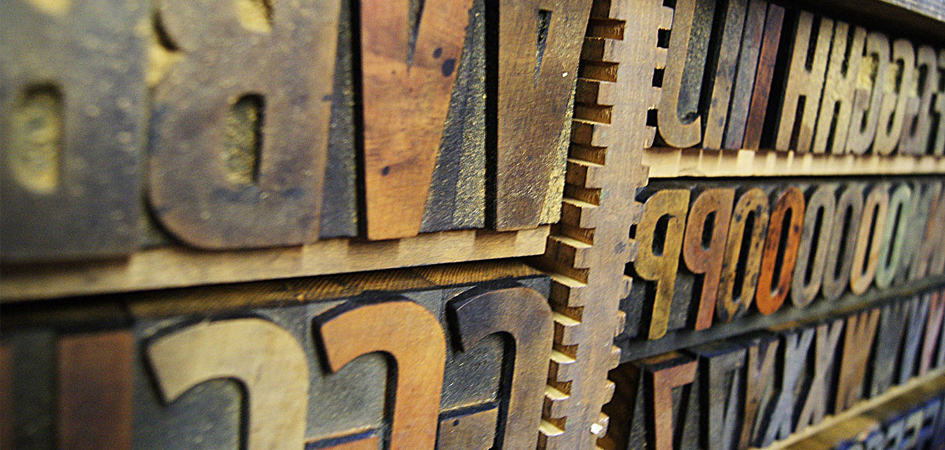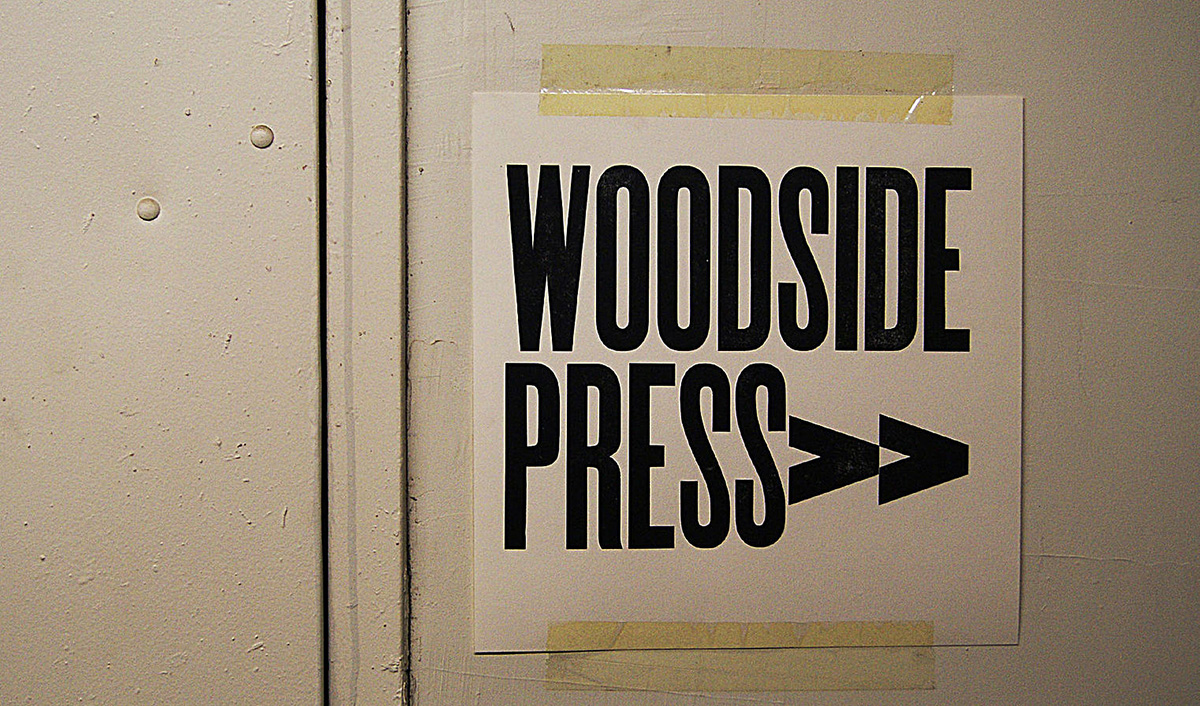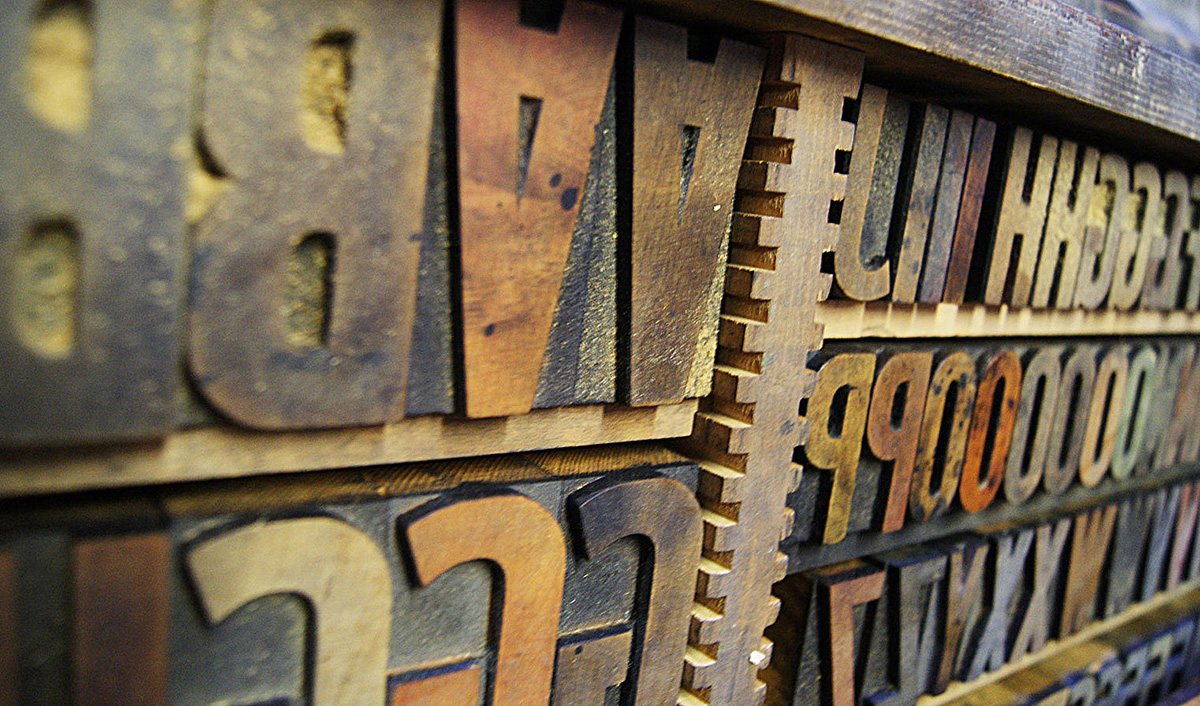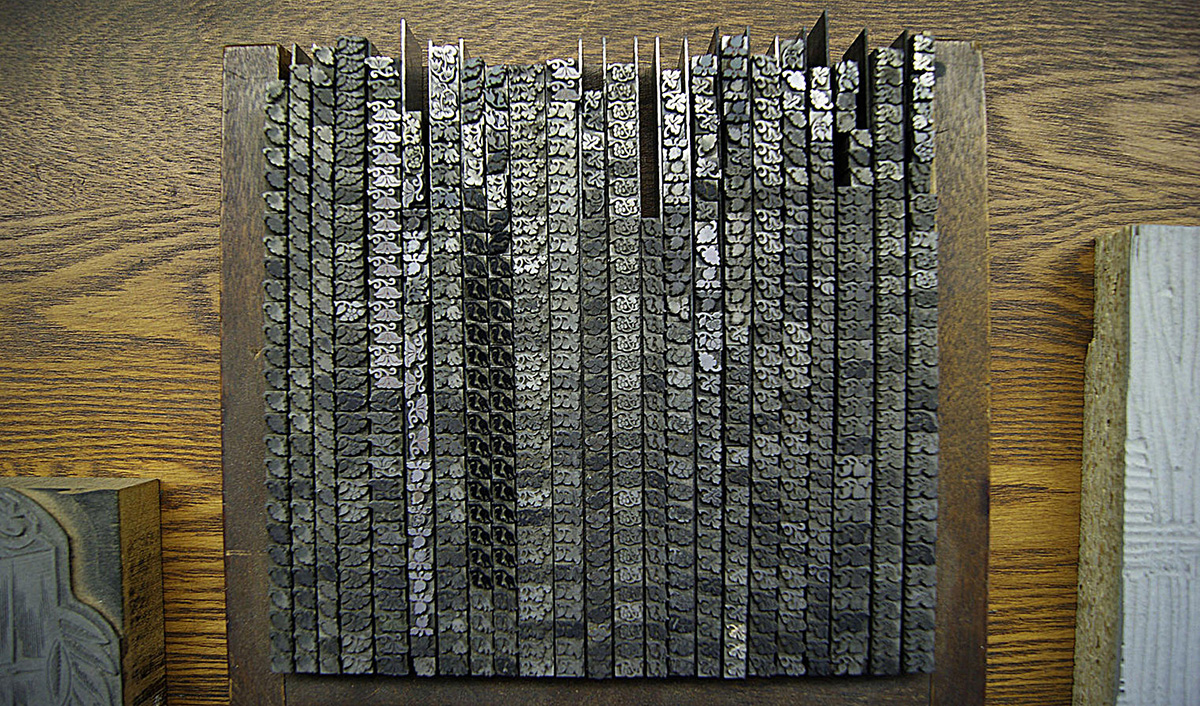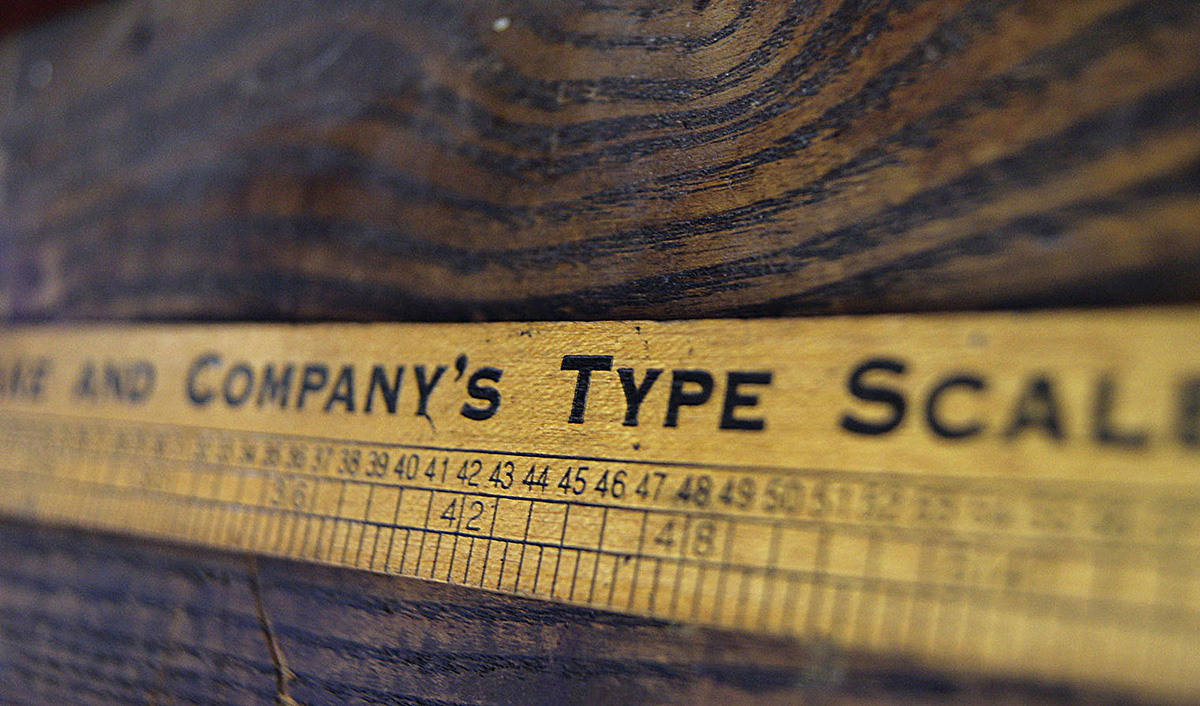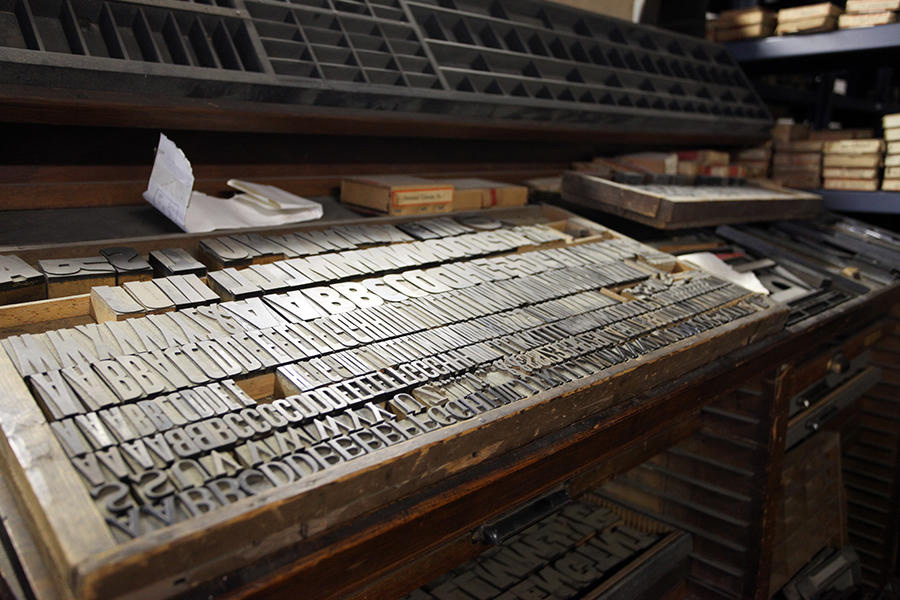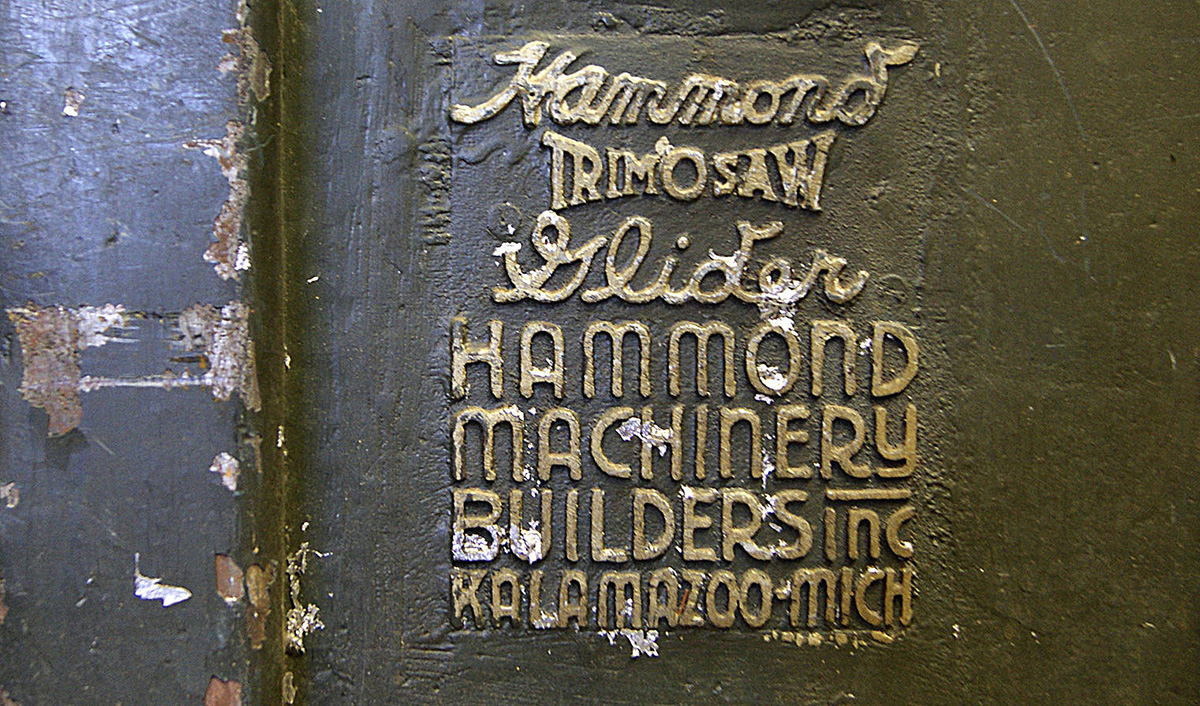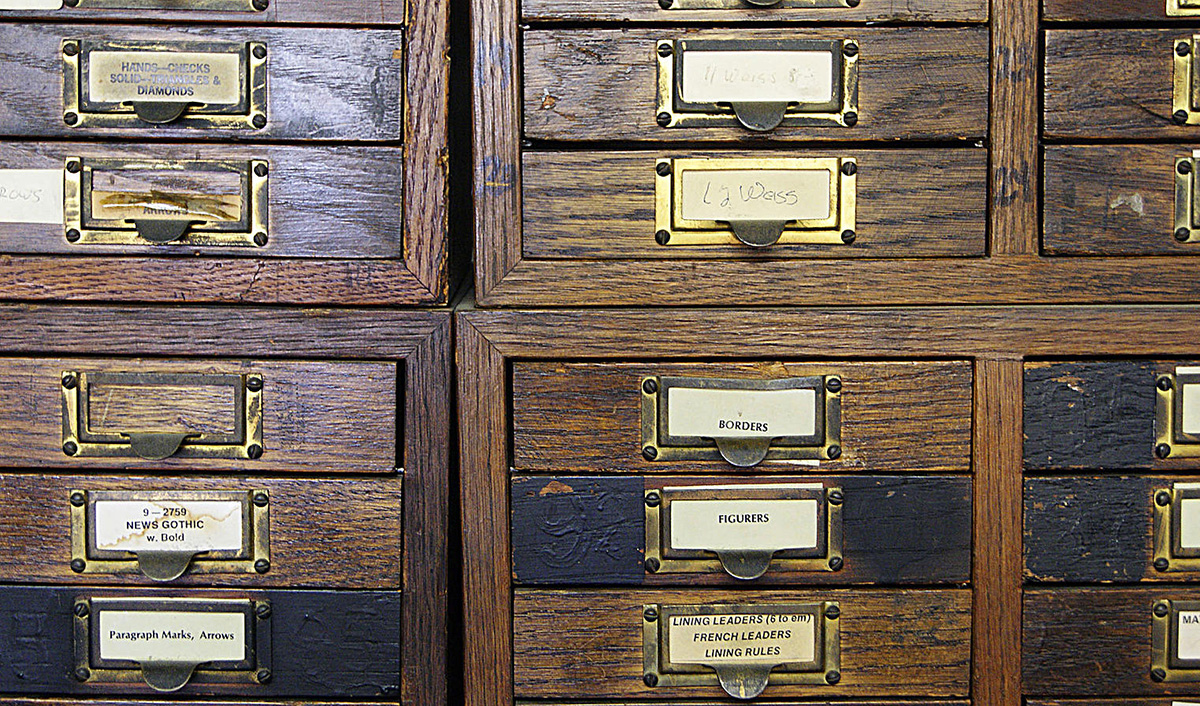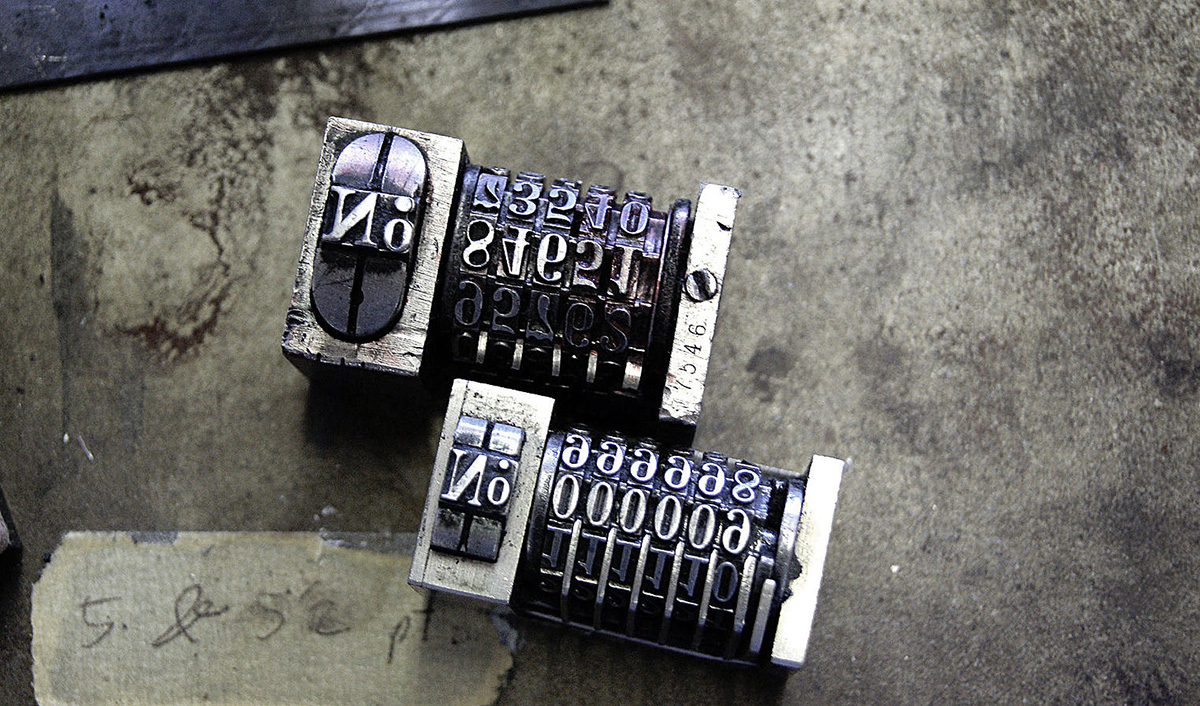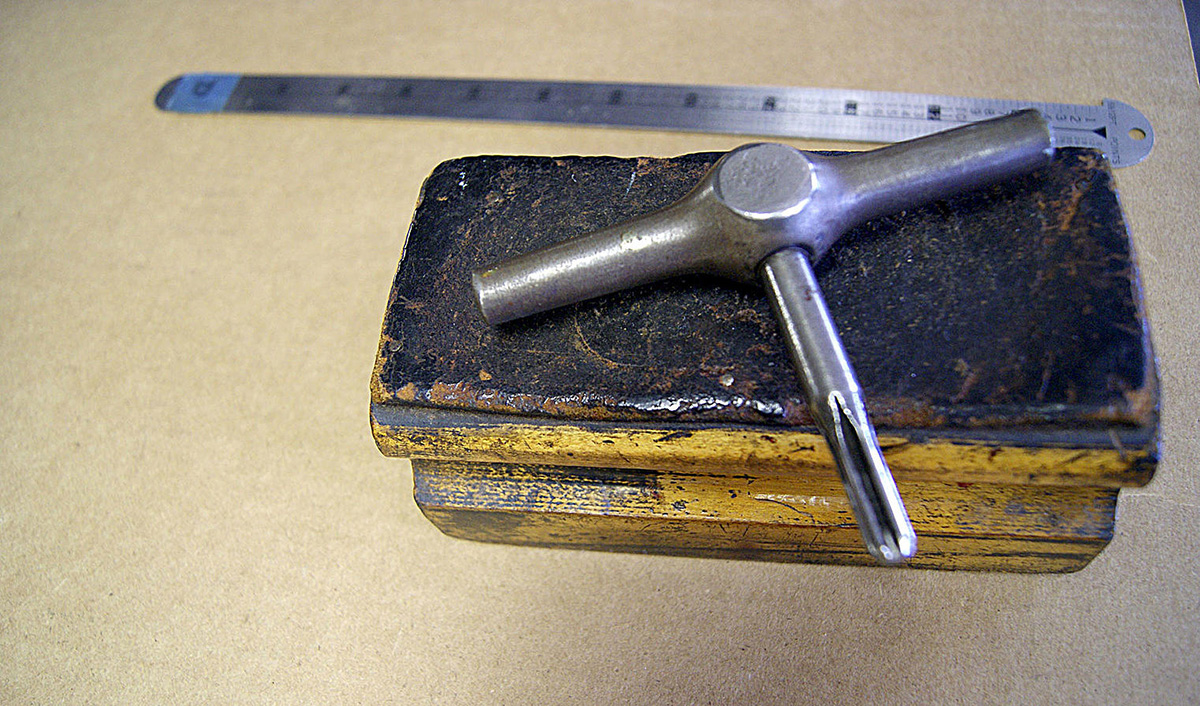
Welcome to the well pressed, timeless allure of Woodside Press
Located in the Brooklyn Navy Yard, the home to a strange assemblage of artists, craftsmen, old school Brooklyn hangers-on and young upstart urban farmers, Woodside Press is in a high-floor corner of a massive 11-story building that was built for World War I. Looking out over the East River onto Manhattan from the southern tip of the island, up past the Williamsburg Bridge, to the United Nations the view from this place is breathtaking but it’s what inside that counts. New York City’s leading facility for hot-metal typography, with Linotype and Ludlow typecasting machines and an impressive range of classic and decorative typefaces Woodside Press was founded back in 1993 by Andy Birsh in Woodside, Queens and in 1998 moved into their space in Building 3.
Linotype Slugs
Since then they have built an unparalleled collection of late 19th and 20th century printing type, including foundry type to set by hand, a huge variety of wooden type for posters and headlines and an array of Linotype and Ludlow hot-metal typefaces. This traditional letterpress printing studio will create printed items of the highest quality for individual, business, and institutional clients alike offering typesetting and type-reproduction services to the graphic-design community. “We have printing presses to suit any kind of letterpress printing project from large-volume runs of business cards to posters up to 18” x 24” in any quantity” is stated in the about page of their site. Having worked for many New York City institutions including the Metropolitan Museum of Art, the Juilliard School, and the Museum of Modern Art (it is in fact, their handset metal type that became the basis for the iconic MoMA logo that adorns the front of 2004 museum building in midtown Manhattan), Woodside Press will work also with individuals to design and print customized wedding invitations, business cards, and personal stationery sets.
New York City’s leading facility for hot-metal typography, with Linotype and Ludlow typecasting machines and an impressive range of typefaces Woodside Press is a treasure to hold
“There is, in short, no project we won’t consider taking on” they say. After all, Davin Kuntze of Woodside Press muses on the need for more letterpress in the world. “In general use we have seven presses. There is the C&P treadle press that came from the American Typefounders Company; two C&P Craftsman presses (one for printing and one for scoring and perfing); a Windmill for longer jobs; a Heidlberg KSB; and finally two Vandercooks, a Universal III for poster work, when we get it, and an SP20 that we use almost exclusively for proofing type” he says. “In addition to that we have a number of random presses in various states of repair, mostly small format platen presses that no one seems to want these days.”
“Trying to explain to a client why I have to charge them more if they want to see a different typeface when I’ve already set their entire invitation in another typeface is hard,” he noted but letterpress is a one of a kind individualised and hands-on experience. The answer to the digital fatigue of a click-and-go design production line, is given here every day, in Woodside’s 5,000 square-foot shop which is filled with equipment, much of which has been acquired over the years from print shops and factories that have gone out of business. “Part of the genesis for the company was the collapse American Type Founders, based in Elizabeth, NJ, which had been the preeminent manufacturer of typefaces and printing presses in the US. Their bankruptcy prompted a fire sale, at which Andy was able to acquire a number the presses that are still in Woodside’s shop today” says Andrew Gustafson. “Though the collection pales to what you might find in a printshop 150 years ago, with millions of well-organized pieces, Woodside had assembled an impressive catalogue that has few peers in the US” he adds on this shrine of a process that has barely changed since its invention by Johannes Gutenberg over 500 years ago and is having the renaissance it deserves.